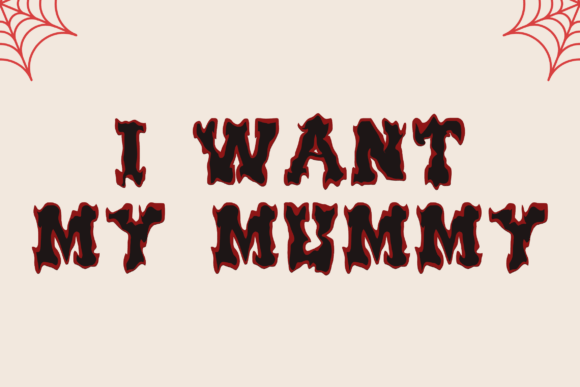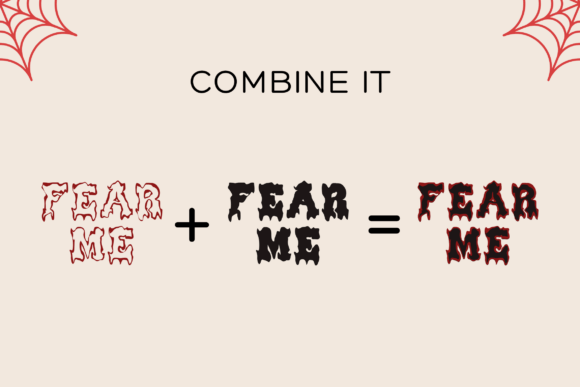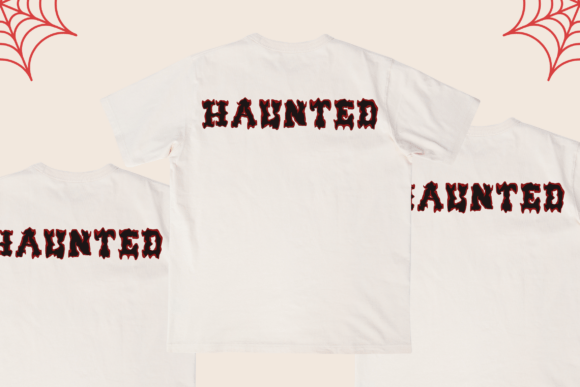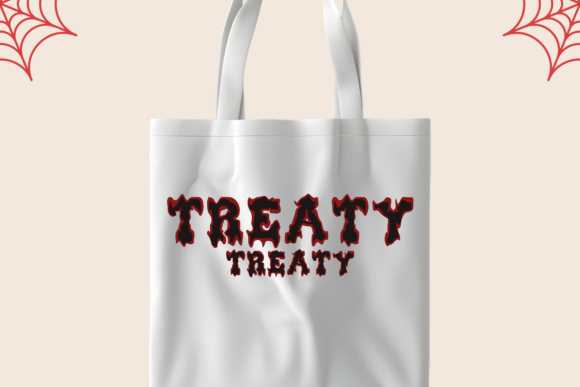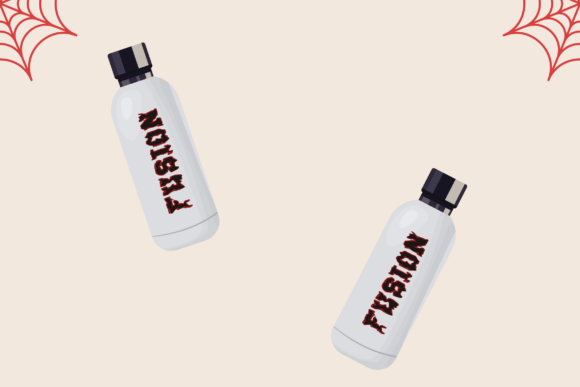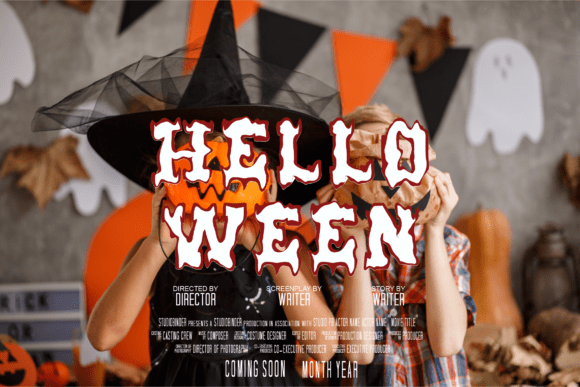
Introduction to Melted Scholar Font
Remember that moment when you’re browsing through a design community, and you stumble upon a font that perfectly captures the essence of your creative project? For many designers, that moment is what drives them to push the boundaries of their art. And if you’re one of those designers, you’ll love the Melted Scholar Font – a bold and unique drip varsity font that’s about to revolutionize the way you think about typography.
With its dripping ink effects and powerful athletic form, the Melted Scholar Font is the perfect blend of school pride and grungy style. It’s ideal for creating high-quality designs that stand out from the crowd, whether you’re working on Halloween-themed apparel, edgy sports graphics, or eye-catching merch.
As a valuable design resource, the Melted Scholar Font offers a transparent background and a free download option, making it easy to incorporate into your next project. Its all-caps format ensures a uniform visual impact, while the dripping edges give every design a unique, creative twist.
Key Features of Melted Scholar Font
- Unique, hand-drawn design ideal for creative projects and high-quality print materials.
- Transparent background, allowing for easy layering and customization in design software.
- High-resolution design (up to 1024×1024 pixels) for crisp and clear display on various devices.
- Perfect for use in a variety of creative contexts, from digital art to print materials, such as posters and flyers.
Honest Review: Melted Scholar Font
I recently had the chance to work with the Melted Scholar Font for a creative project, and I must say, I’m impressed. As a designer, I’m always on the lookout for high-quality fonts that can elevate my designs.
Here are some things that work well with this font: ✨ It’s got a unique, hand-drawn feel that’s perfect for adding a touch of personality to your designs. ✨ The font is highly legible, even at smaller sizes, making it a great choice for body text. ✨ It’s also fully customizable, with a transparent background that makes it easy to layer over other design elements.
- Highly legible and customizable
- Unique, hand-drawn feel
To achieve high quality results, be sure to use the font on a transparent background. This will allow the unique, melted style of the font to really stand out. Additionally, experiment with different font sizes and colors to find the perfect look for your project.
The Melted Scholar Font is perfect for any creative project that requires a unique, eye-catching font. Some common use cases include:
- Poster design
- Blog post titles